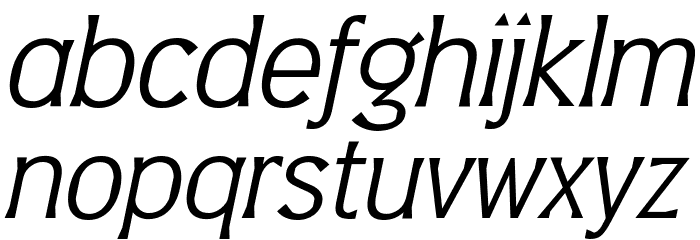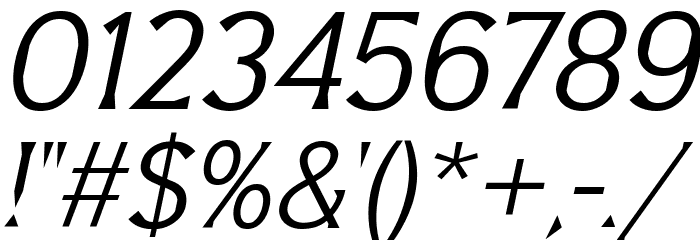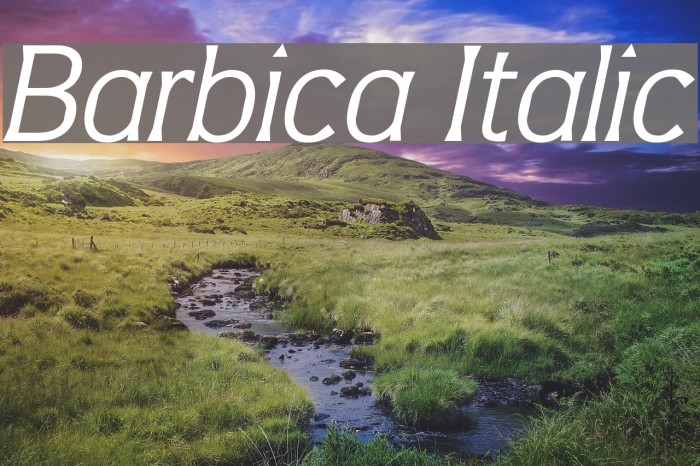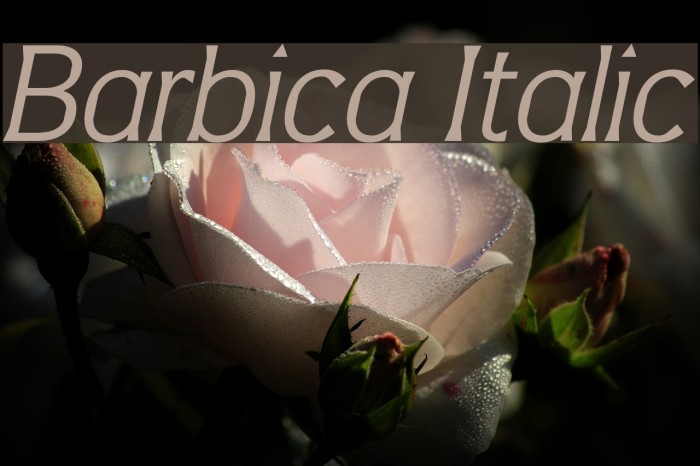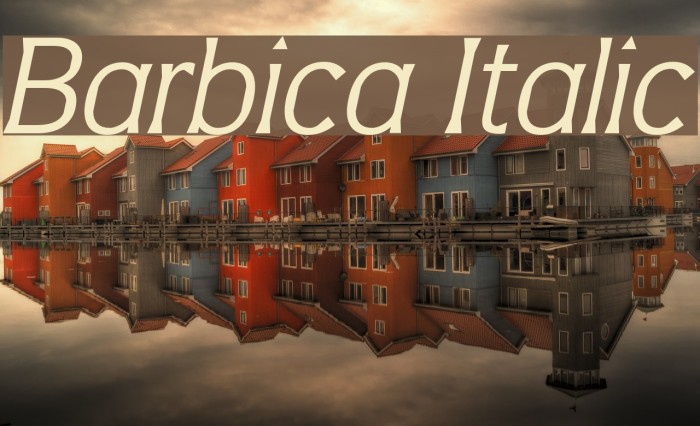
Barbica Italic Font
This font features a sleek and modern italic style, characterized by its clean lines and subtle slant. The uppercase and lowercase letters maintain a consistent flow, with a slight emphasis on the diagonal strokes, giving it a dynamic and elegant appearance. The numerals are well-proportioned, matching the overall aesthetic of the alphabet. Special characters are designed with the same attention to detail, ensuring uniformity across all glyphs. The font's design is both functional and stylish, making it suitable for a variety of applications where a touch of sophistication is desired.
A modern italic font with clean lines and a subtle slant.
- Proposed Projects: Ideal for branding, editorial design, and digital media where a modern and elegant look is required.